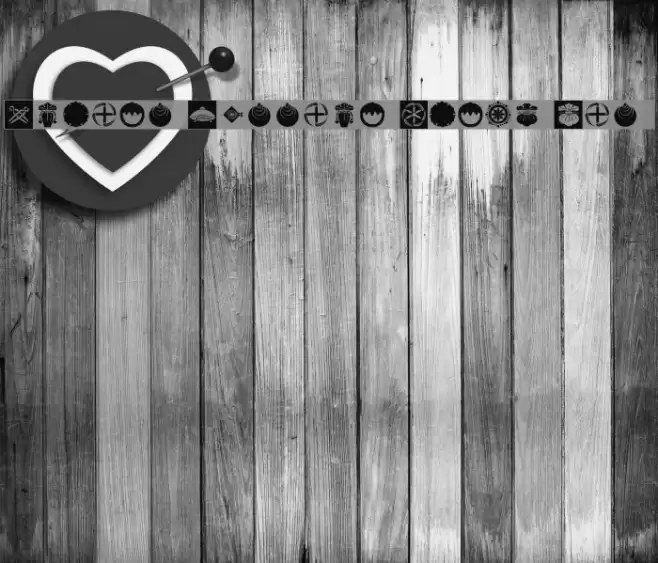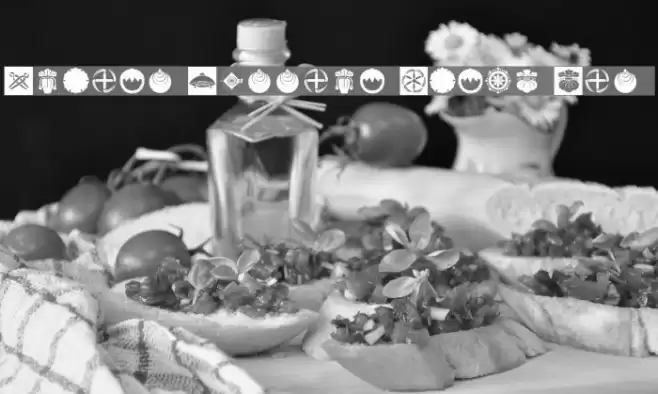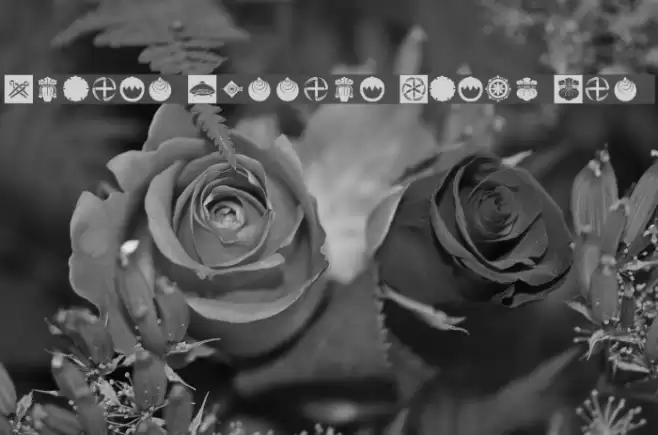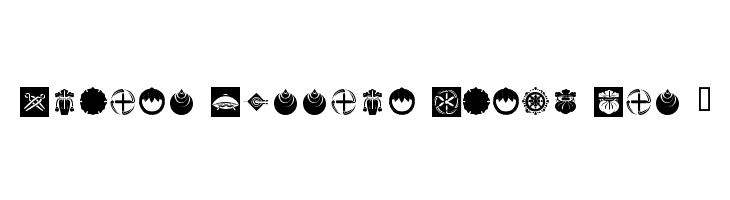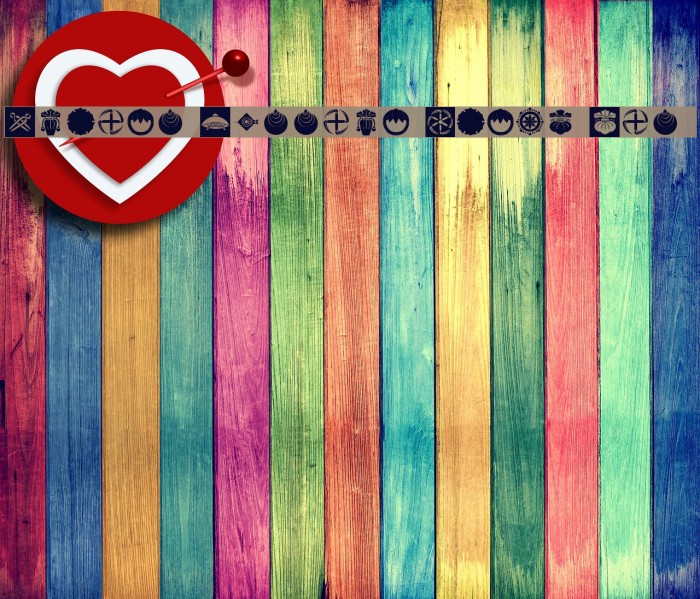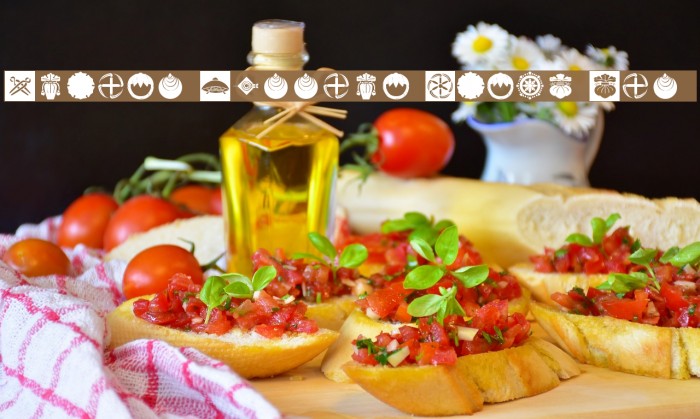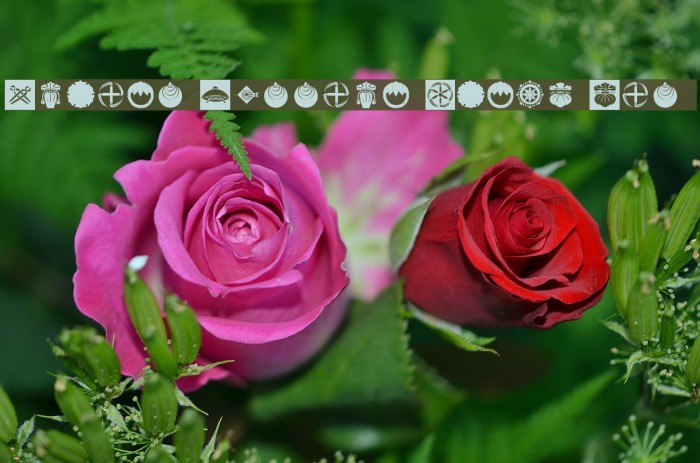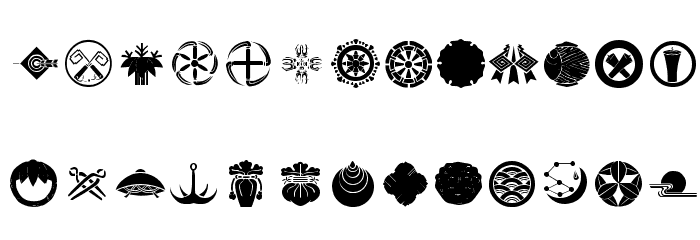
A decorative dingbat set featuring a variety of intricate, circular, and geometric patterns inspired by traditional Eastern and Japanese motifs. Each glyph is a unique symbol or emblem, rendered in bold black and white with high contrast and clean lines.
Ornamental dingbat set with Eastern-inspired motifs from Uncategorized fonts.
- Proposed Projects: Branding, packaging, invitations, decorative borders, textile design, digital stickers, icon sets.
- Overall Style: Decorative, Traditional, Ornamental
- Use Case: Logos, Decorative elements, Icons, Borders